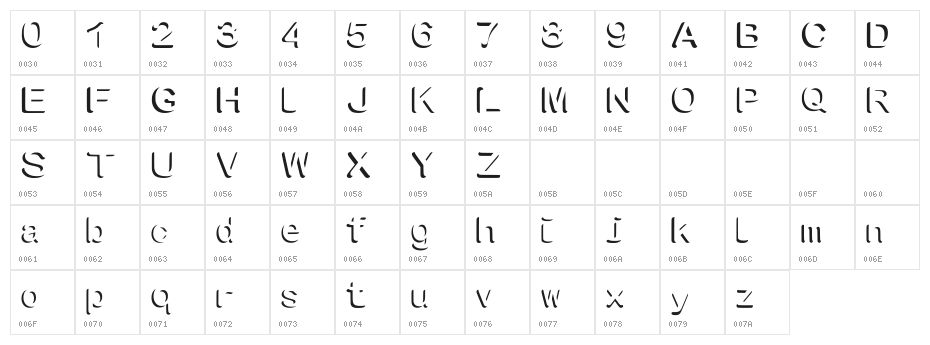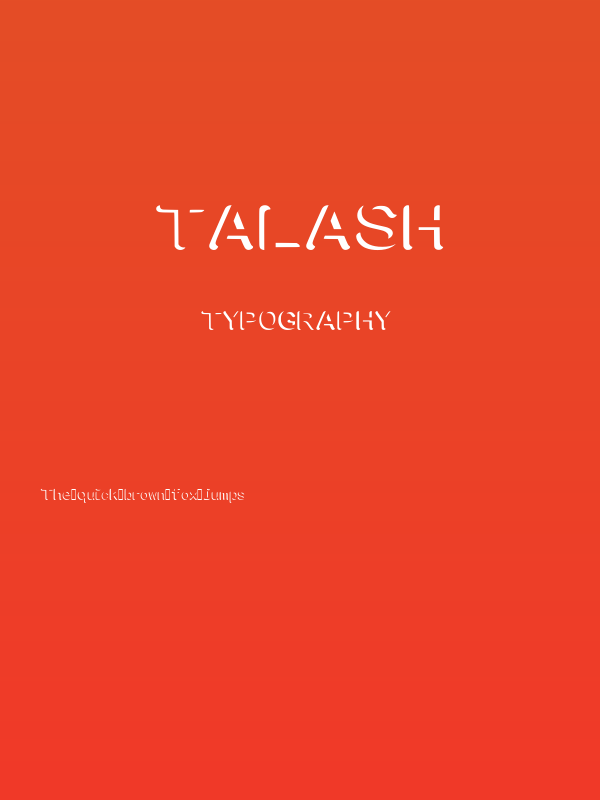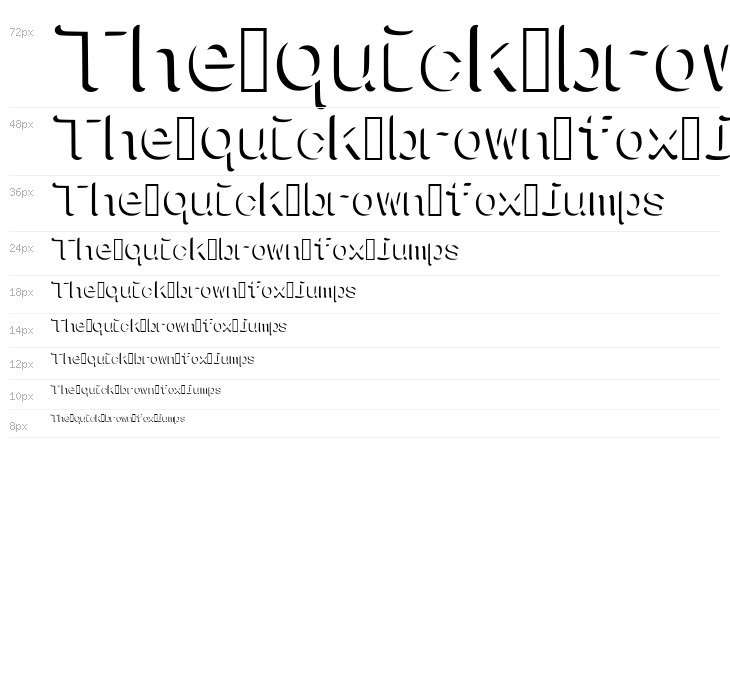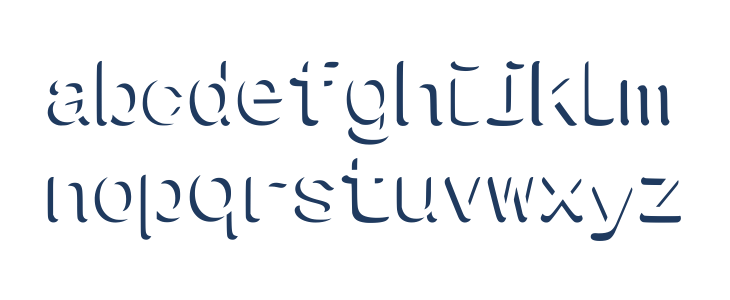
TALASH Font
TALASH Description
This font features a modern and innovative stencil design, characterized by its unique cut-out sections within each character. The uppercase and lowercase letters maintain a consistent style, with smooth curves and sharp angles that create a dynamic visual impact. The numbers and special characters follow the same design principles, ensuring a cohesive look across all glyphs. The font's distinct appearance makes it suitable for creative and bold design projects, where a contemporary and eye-catching typeface is desired.
| Proposed Projects | Ideal for branding, poster design, packaging, and any project requiring a bold, modern aesthetic. |